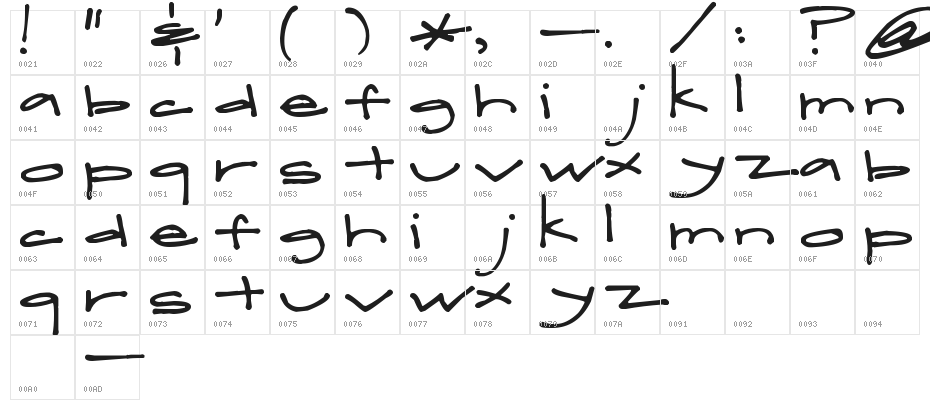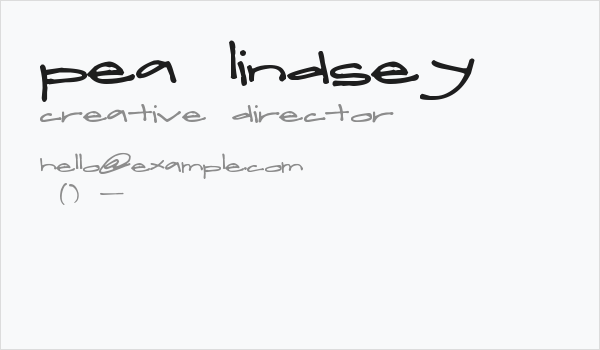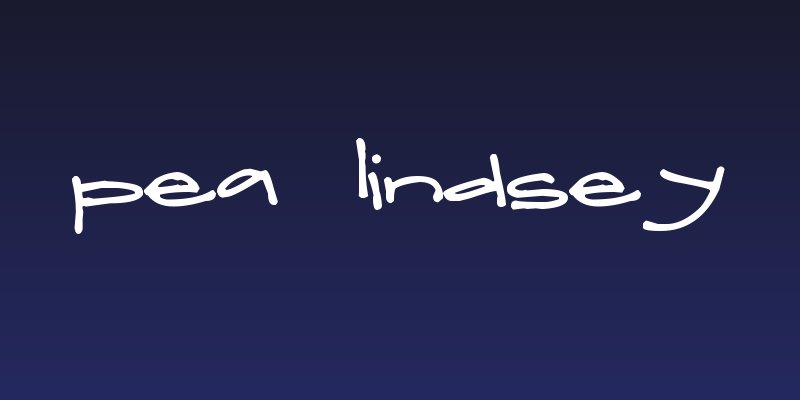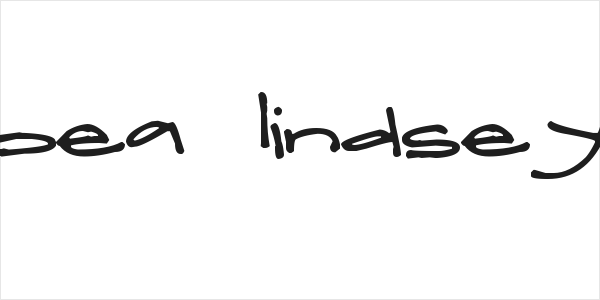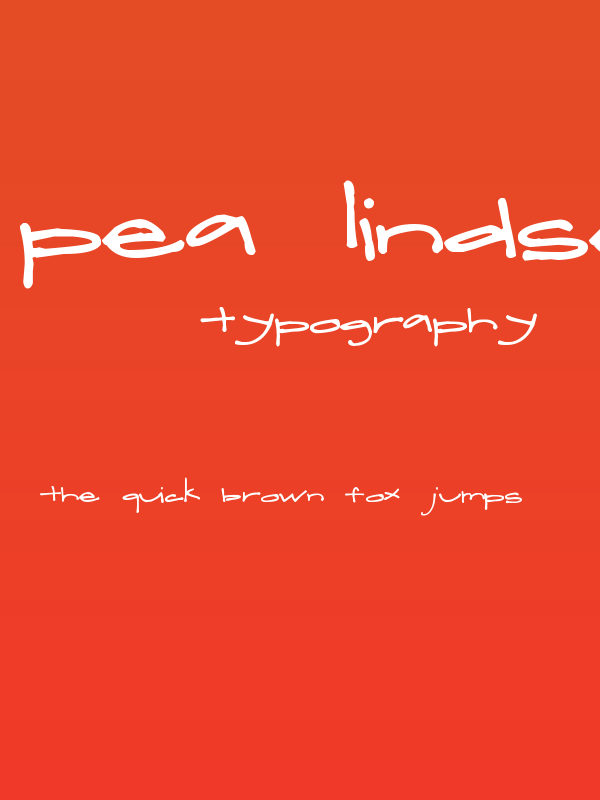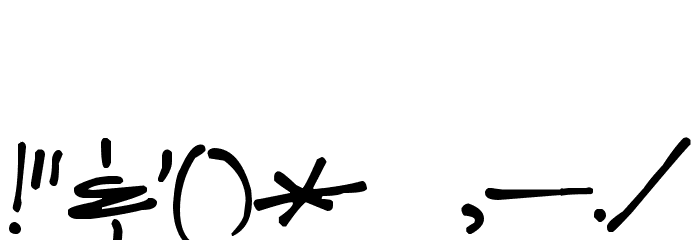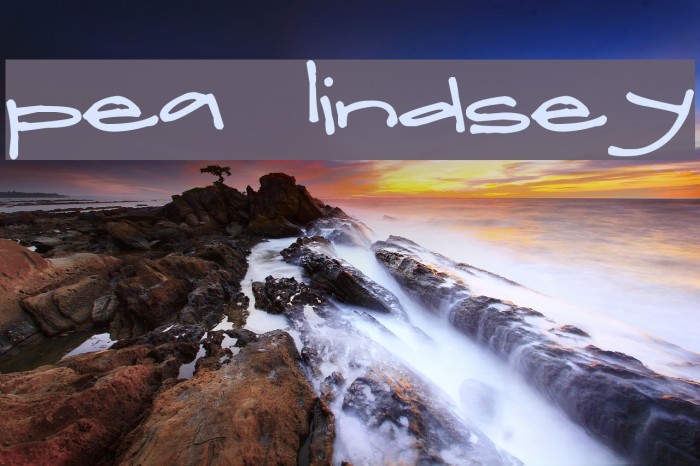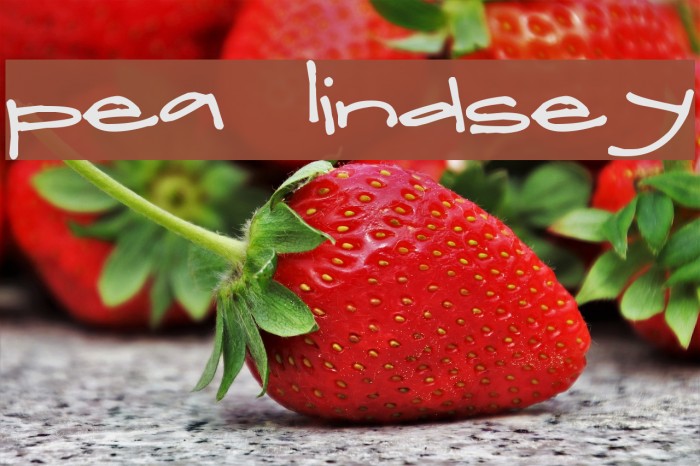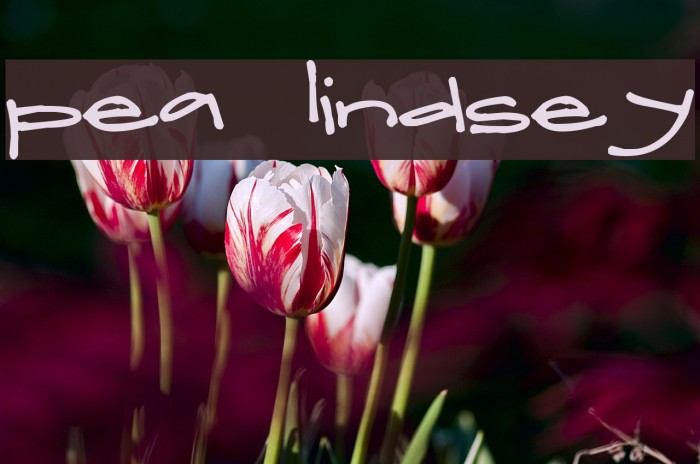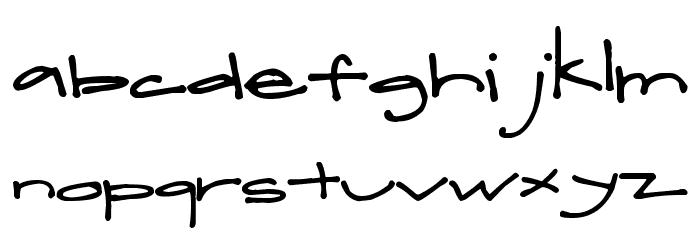
Pea Lindsey Font
| Stile generale | Casual, Playful |
| Caso d'uso | Headlines, Informal text, Personal projects |
| Progetti proposti | Ideal for greeting cards, personal invitations, casual branding, and social media graphics. |